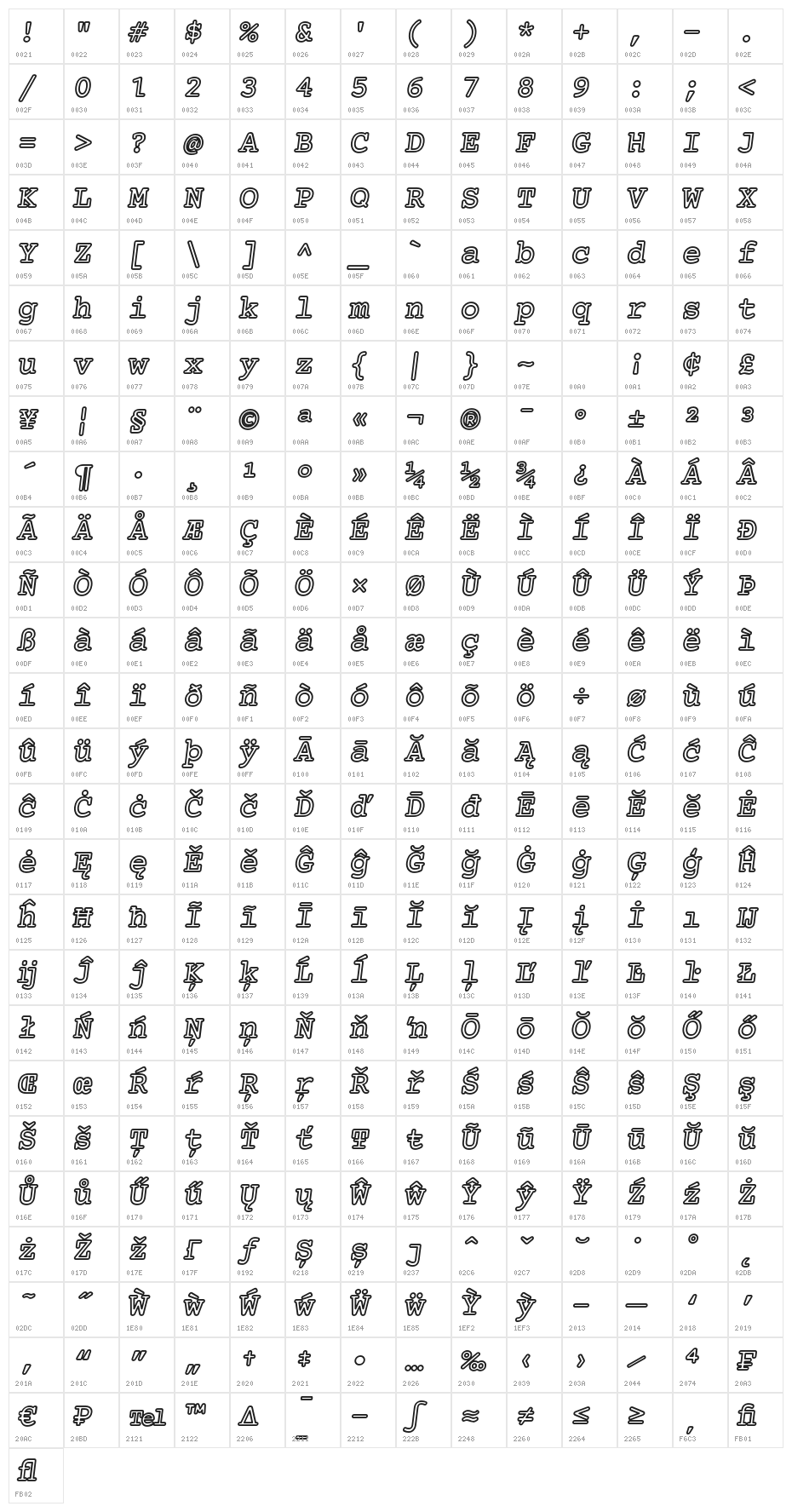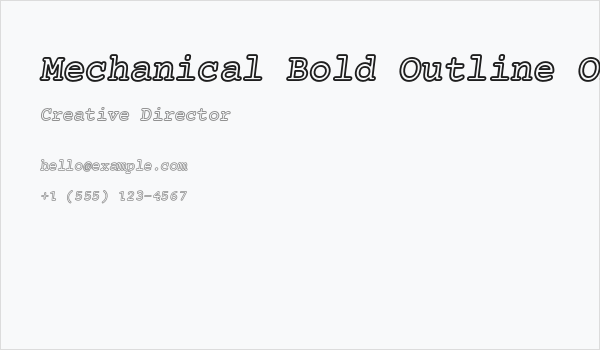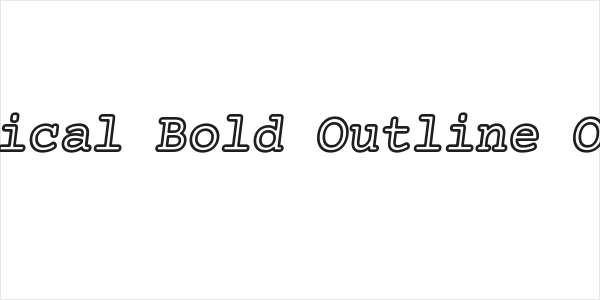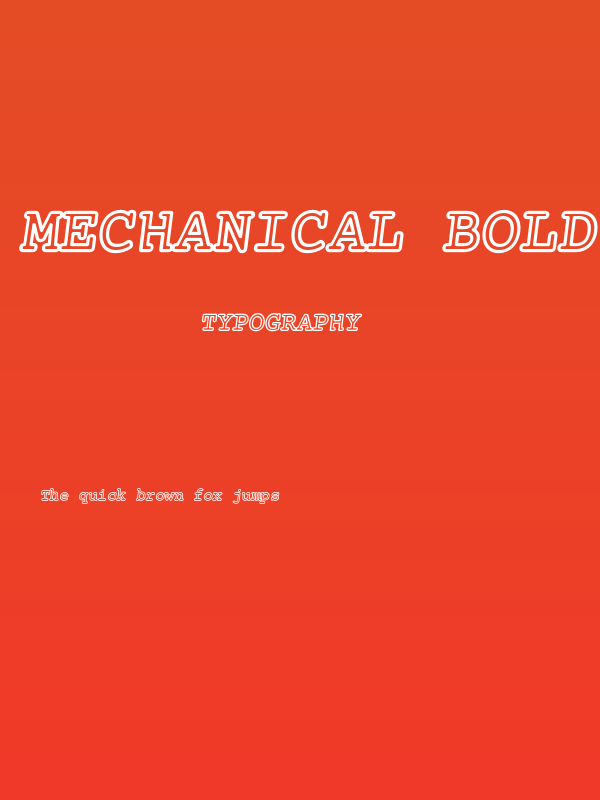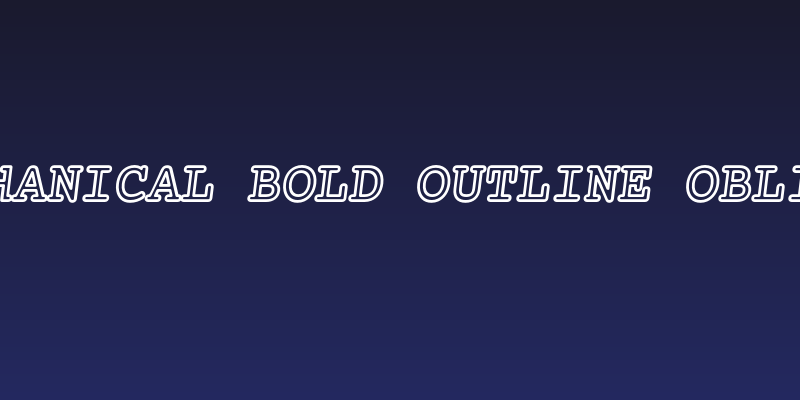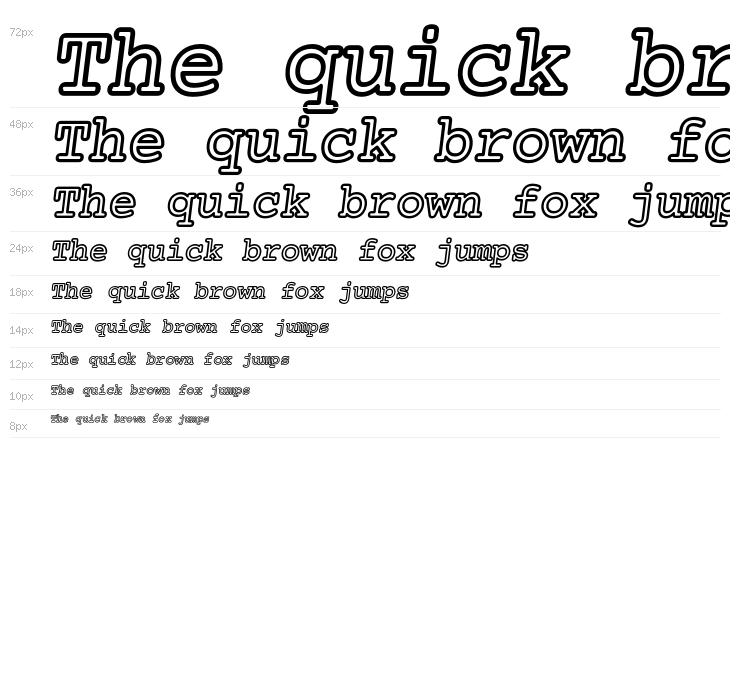
Mechanical Bold Outline Oblique Font
Mechanical Bold Outline Oblique Description
This font features a bold, mechanical style with an outline that gives it a distinct, industrial look. The oblique slant adds a dynamic and forward-moving feel, making it suitable for attention-grabbing designs. The uppercase and lowercase letters maintain a consistent width, contributing to a uniform appearance. The numerals and special characters are designed to match the boldness and outline of the alphabet, ensuring a cohesive look across all characters. The font's mechanical nature is emphasized by its geometric shapes and clean lines, making it ideal for projects that require a modern and technical aesthetic.
| Proposed Projects | Ideal for branding, posters, and signage that require a modern, industrial look. |